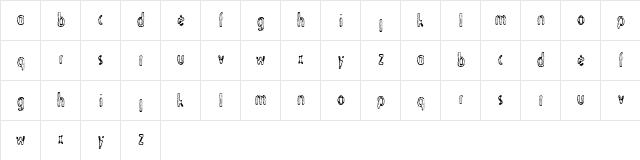
lurker Regular
Design Context for lurker Typeface
lurker is a composed and adaptable typeface that performs quietly and consistently across a wide range of design contexts.